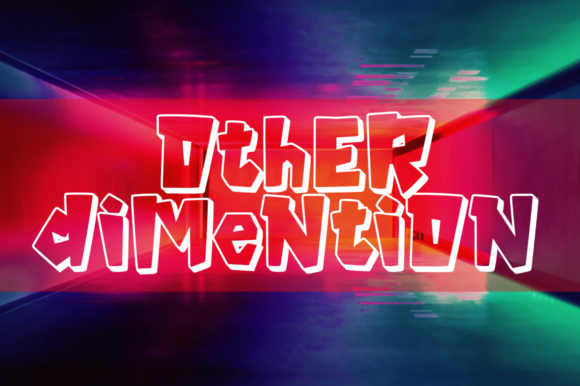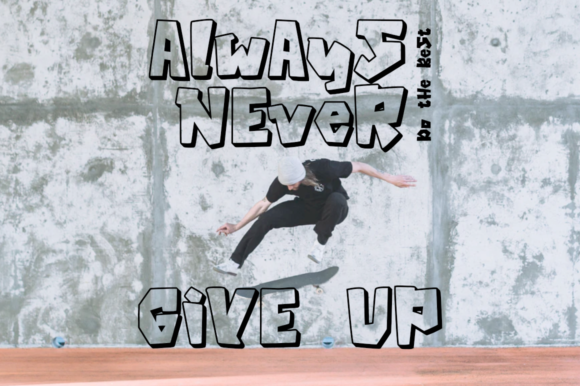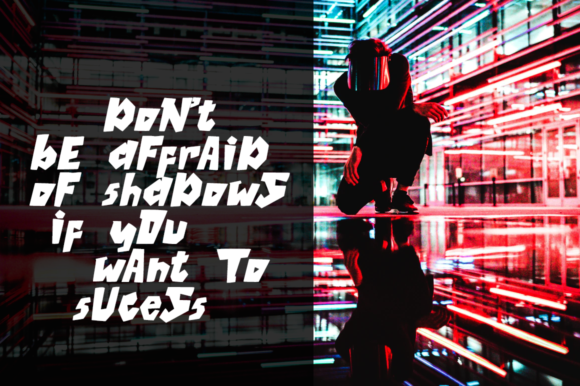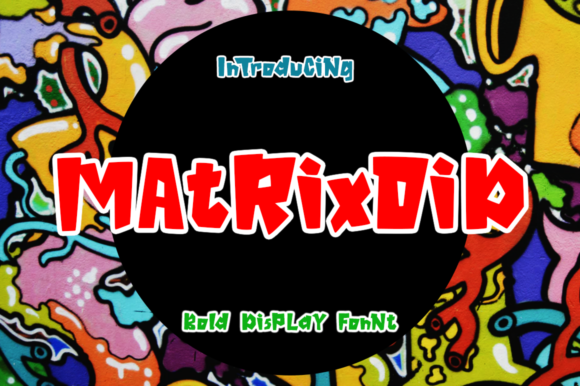
Introduction to Matrixoid Font
Matrixoid feels extremely bold and playful.
This unique display font will turn any design project into an eye-catcher .
Matrixoid Font offers exceptional quality and versatility, making it a valuable addition to your design toolkit. Whether you’re creating for personal projects or commercial use, Matrixoid Font delivers professional results.